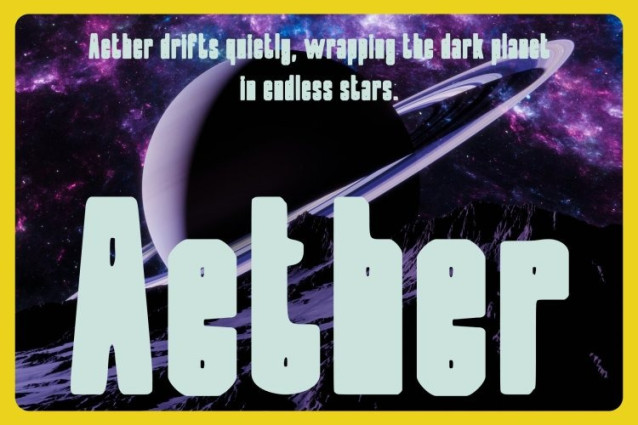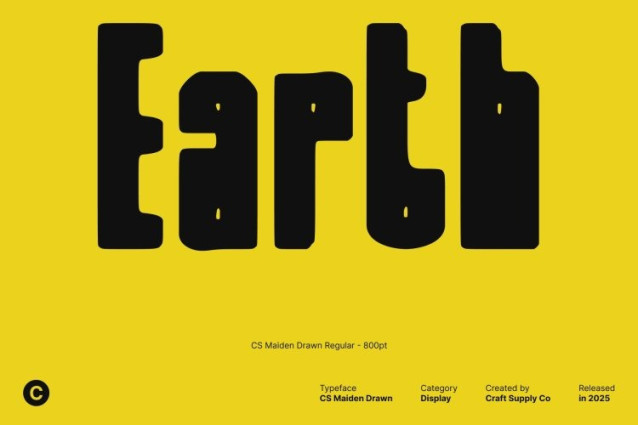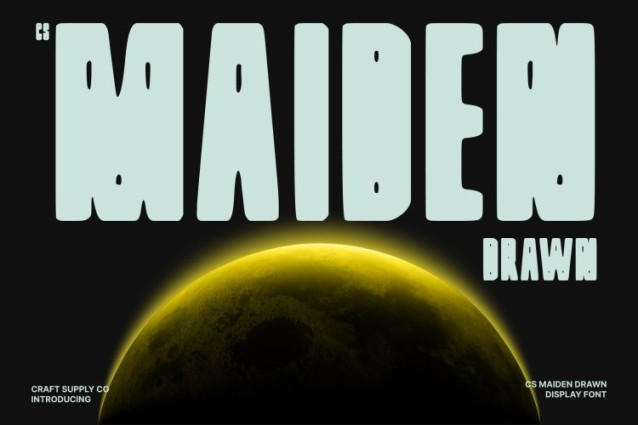
CS Maiden Drawn Font
CS Maiden Drawn Font This is a bold, condensed sans serif font built with block-style letterforms that demand attention. Its narrow proportions and heavy weight create a powerful vertical presence, making it instantly recognizable and visually striking. The drawn effect adds handcrafted irregularities, giving the font an expressive, raw character that sets it apart from conventional sans serif designs.
Unique Structure with Brutalist Influence
Designed with a strong geometric foundation, embraces a contemporary and brutalist aesthetic. Its rigid structure is softened by the drawn texture, creating an interesting contrast between order and imperfection. This balance results in a font that feels modern, experimental, and unapologetically bold.
Perfect for Artistic and Modern Design
This font excels in artistic layouts, posters, experimental branding, editorial headlines, and modern visual identities. Its condensed form maximizes impact in tight spaces, while its bold weight ensures strong readability at display sizes.
Modern Expression with Distinct Personality
More than just a bold typeface, offers a unique visual voice for designers who want to break away from the ordinary. It’s an ideal choice for contemporary, brutalist, and modern projects that seek strength, individuality, and expressive typography.